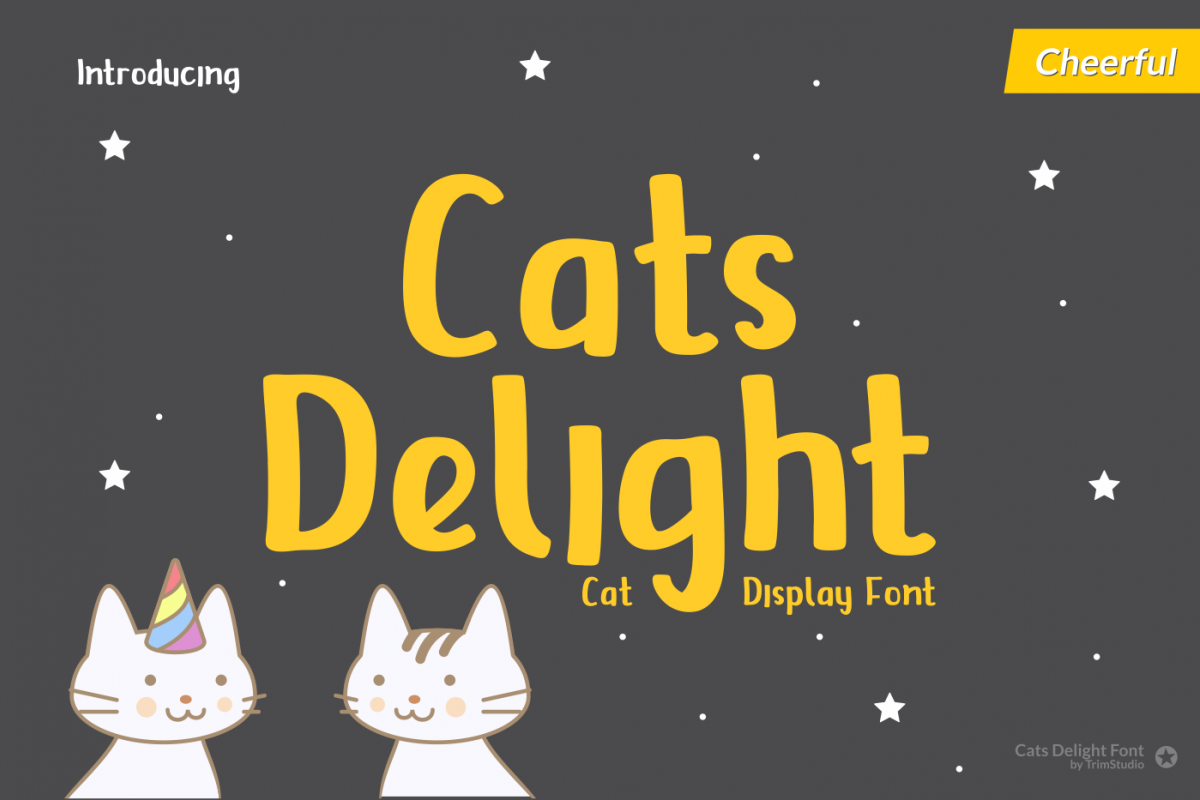
Cats Delight - Cat Display Font
Cats Delight - Cat Display Font, with cute and cheerfull theme, it gives happiness and fantasy to your designs
This font is perfect for branding, logo, store, blog, invitations any many more!